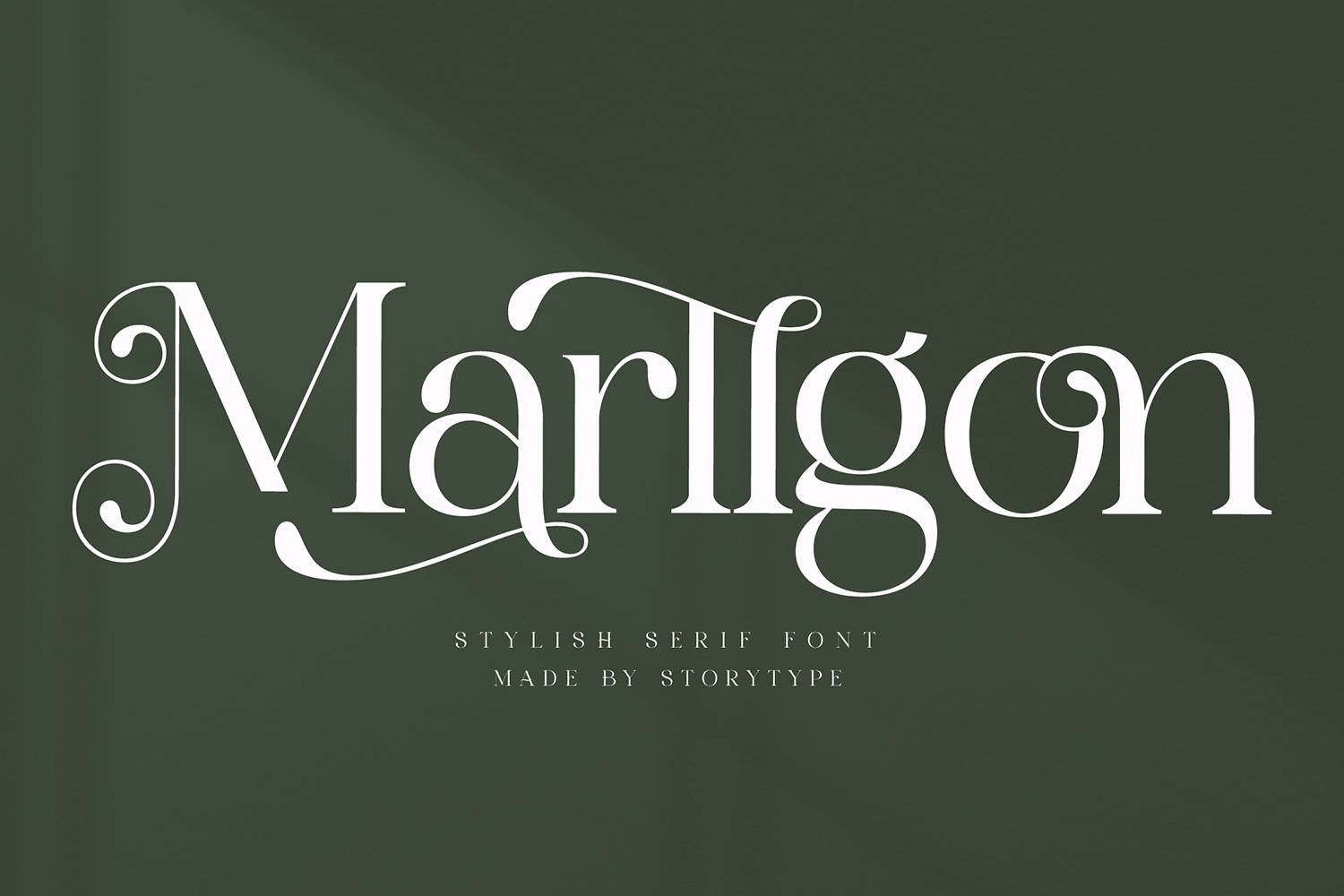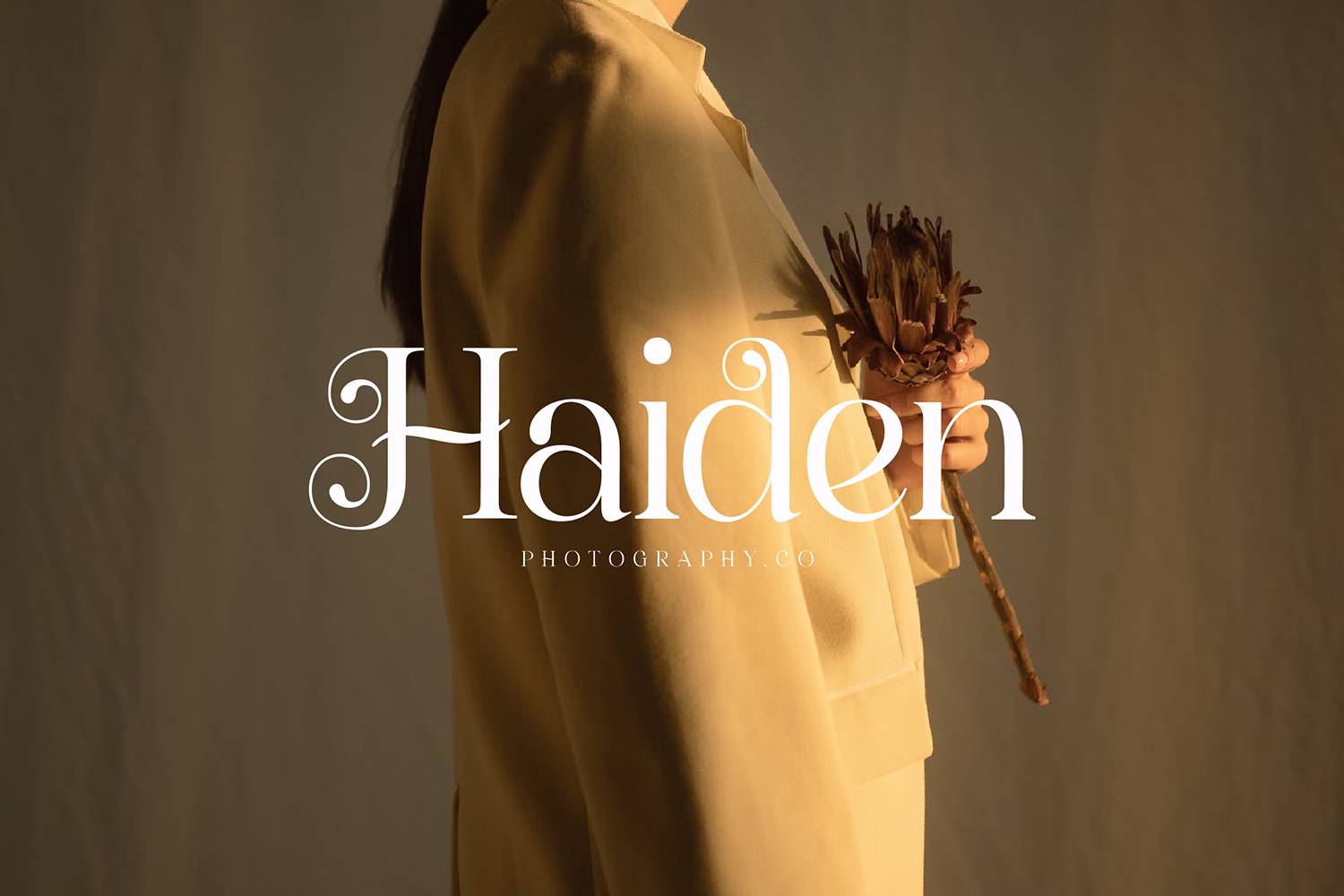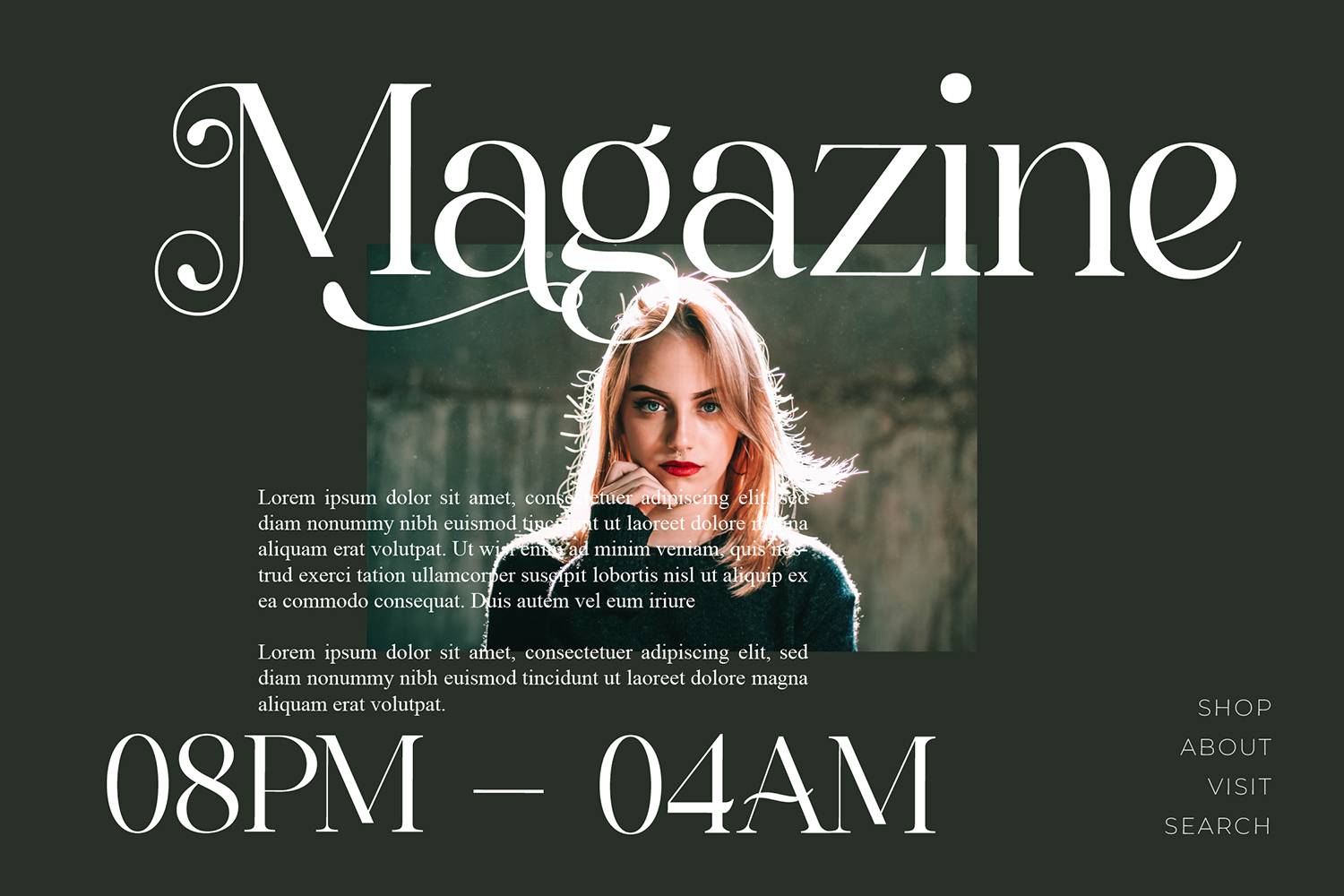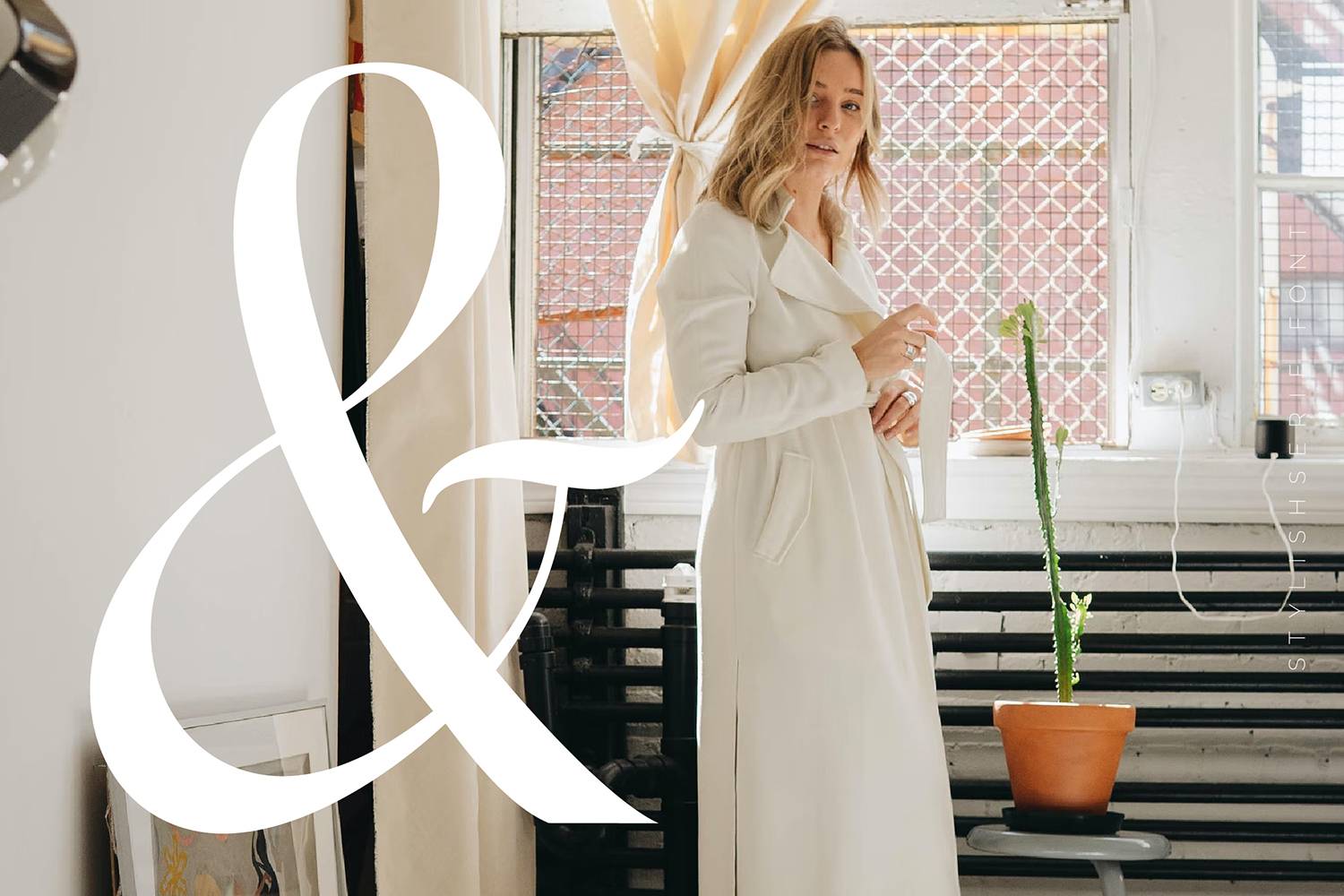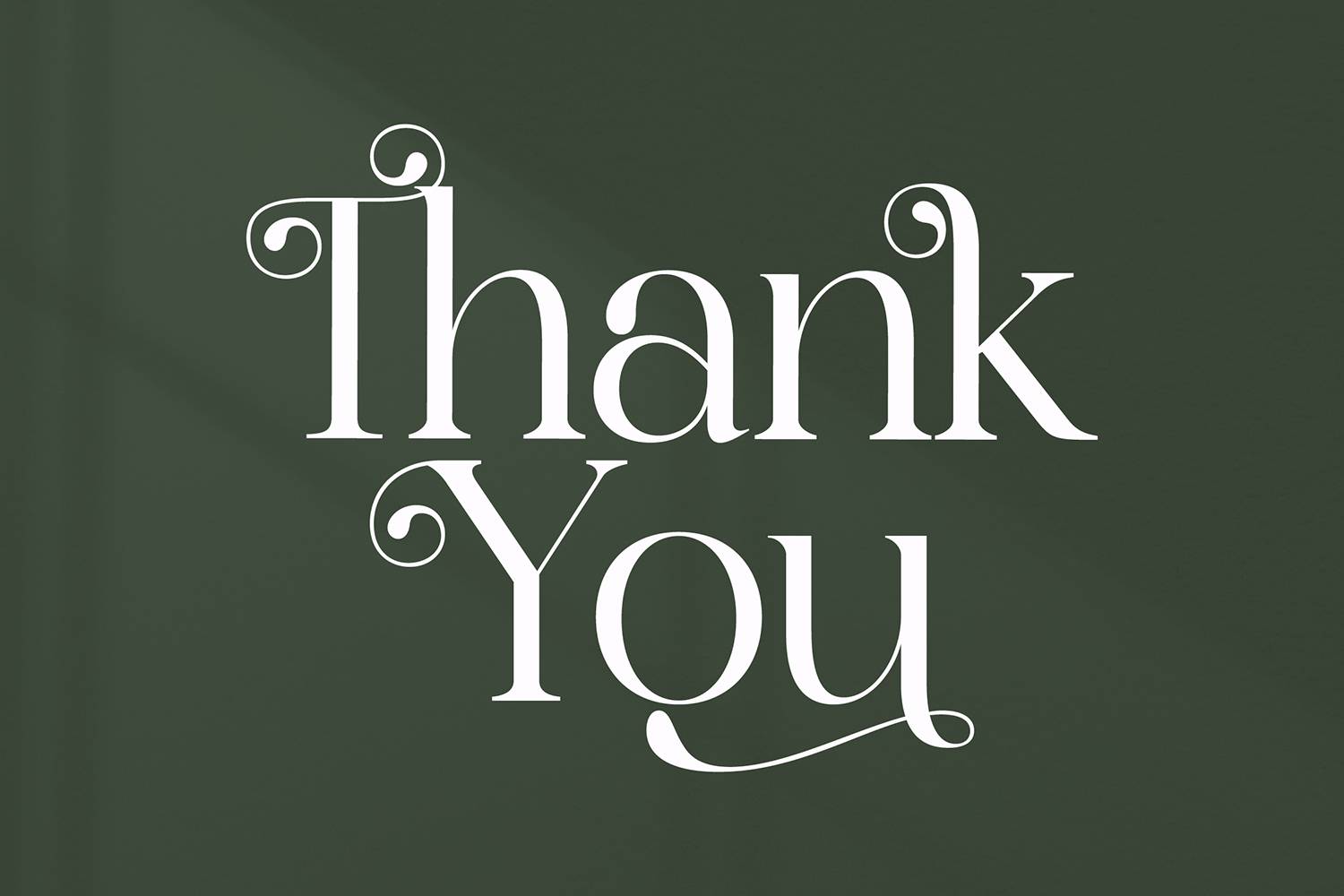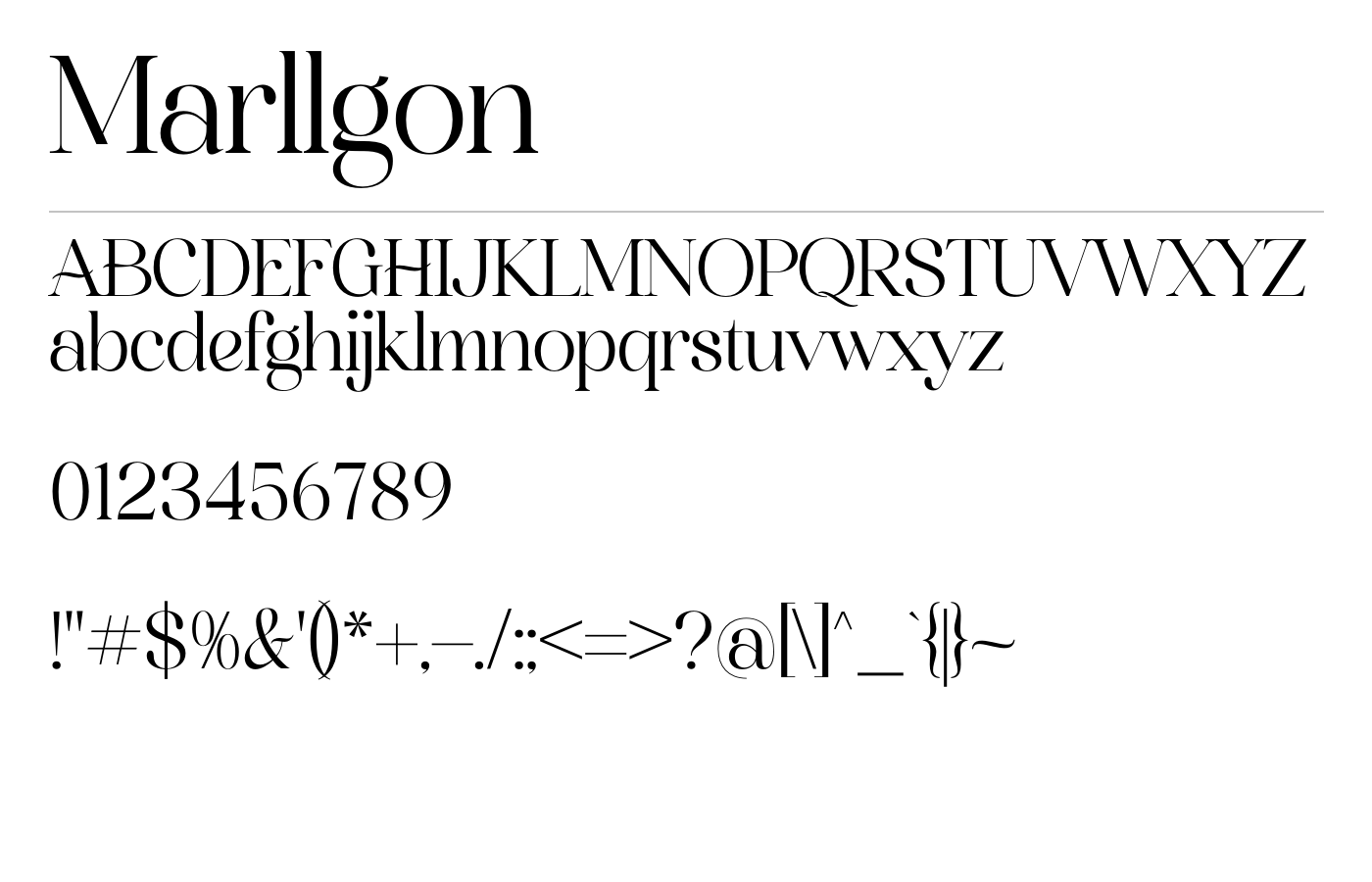
Marllgon is an elegant Didone serif font characterized by its high contrast between thick and thin strokes and slender, bracketed serifs. Its refined letterforms, featuring unique details like the curved tail of the 'Q' and the single-story 'a', lend a sophisticated and luxurious feel, making it ideal for fashion branding, editorial headlines, and upscale packaging. The font balances classic style with a modern edge, delivering a timeless yet contemporary voice for designs needing a touch of grace and professionalism.
Marllgon Font
About Marllgon Font